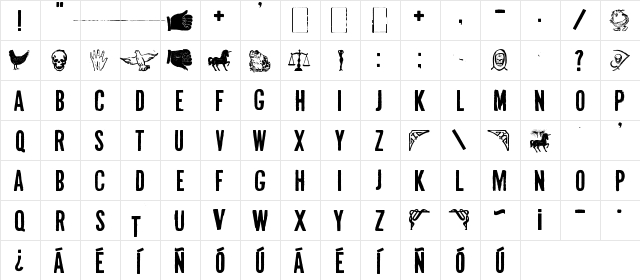
Mal de Ojo Regular
| Designer | Tim Gibbon |
| Version | 4/08. Text and images scanned from letterpressed Mexican religious pamphlets. |
Design Context for Mal de Ojo Typeface
Mal de Ojo offers clean, dependable letterforms without strong stylistic allegiance, making it a practical choice for designers who need flexibility.